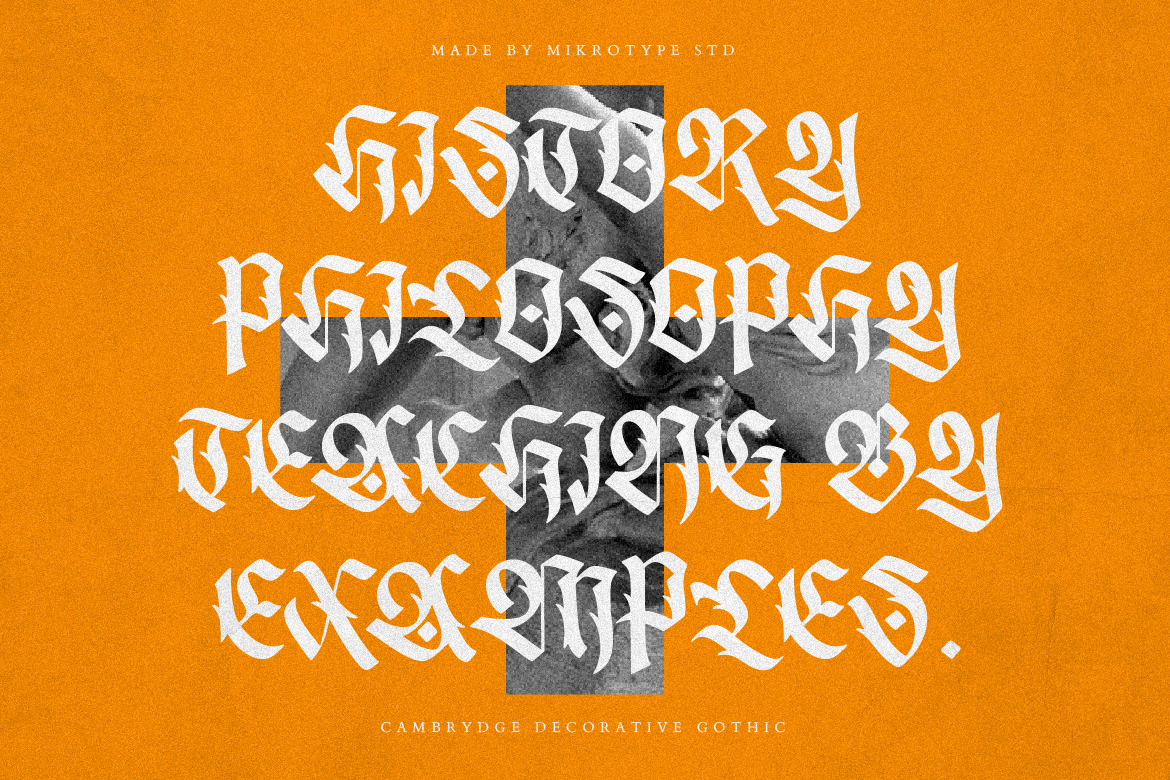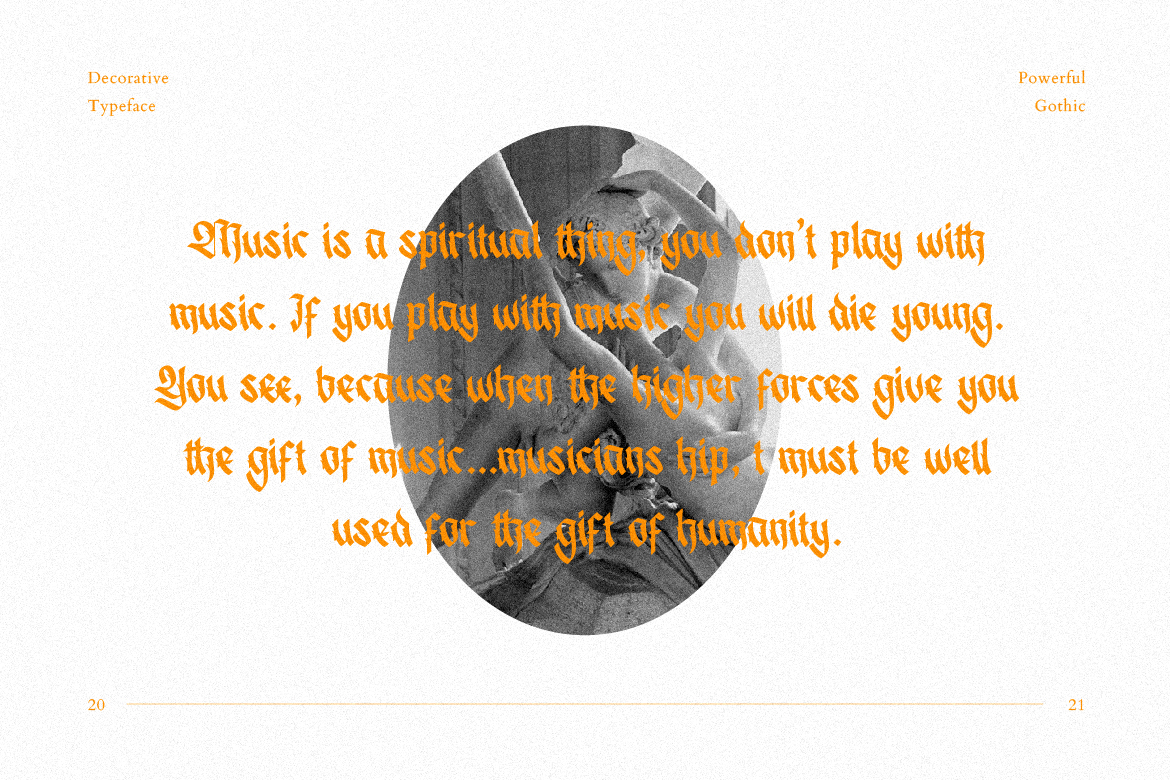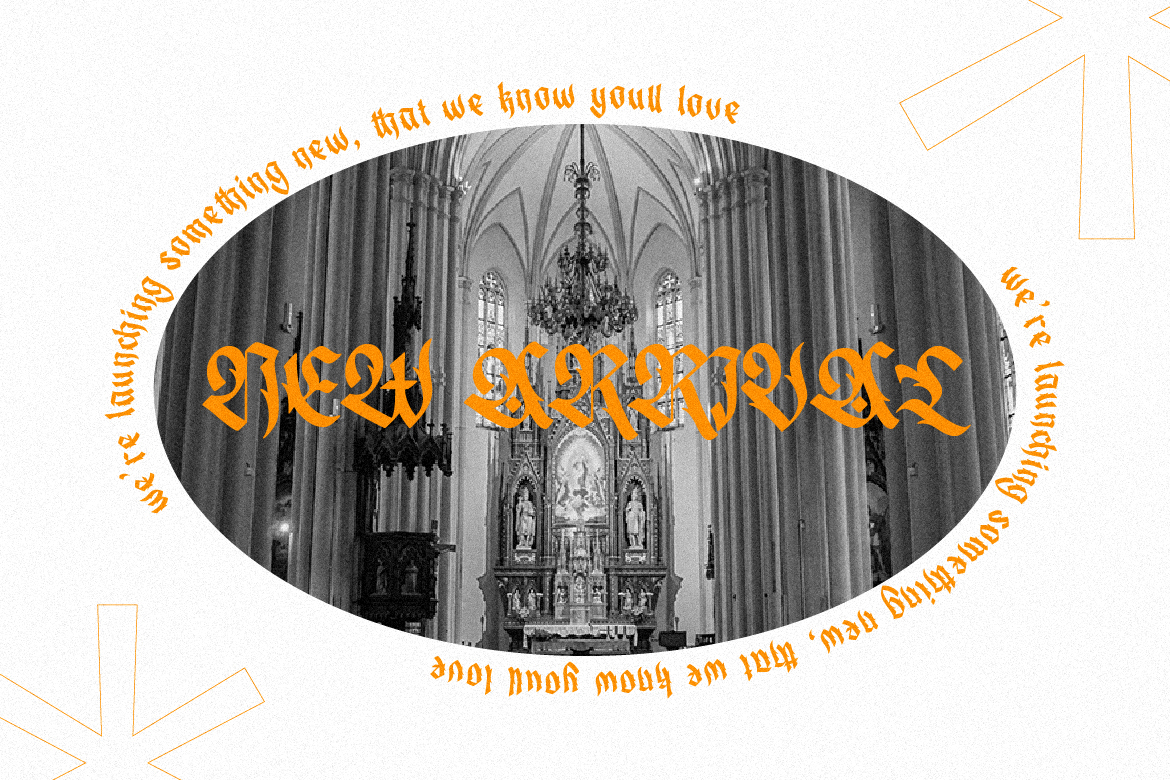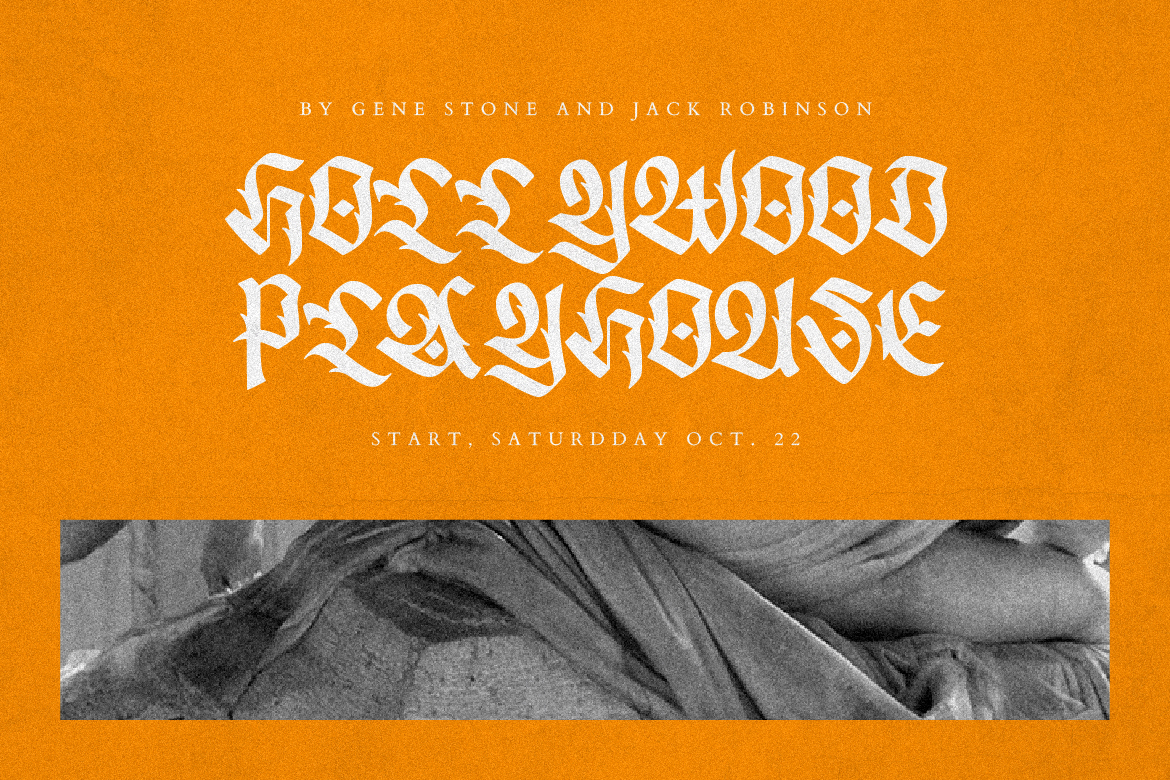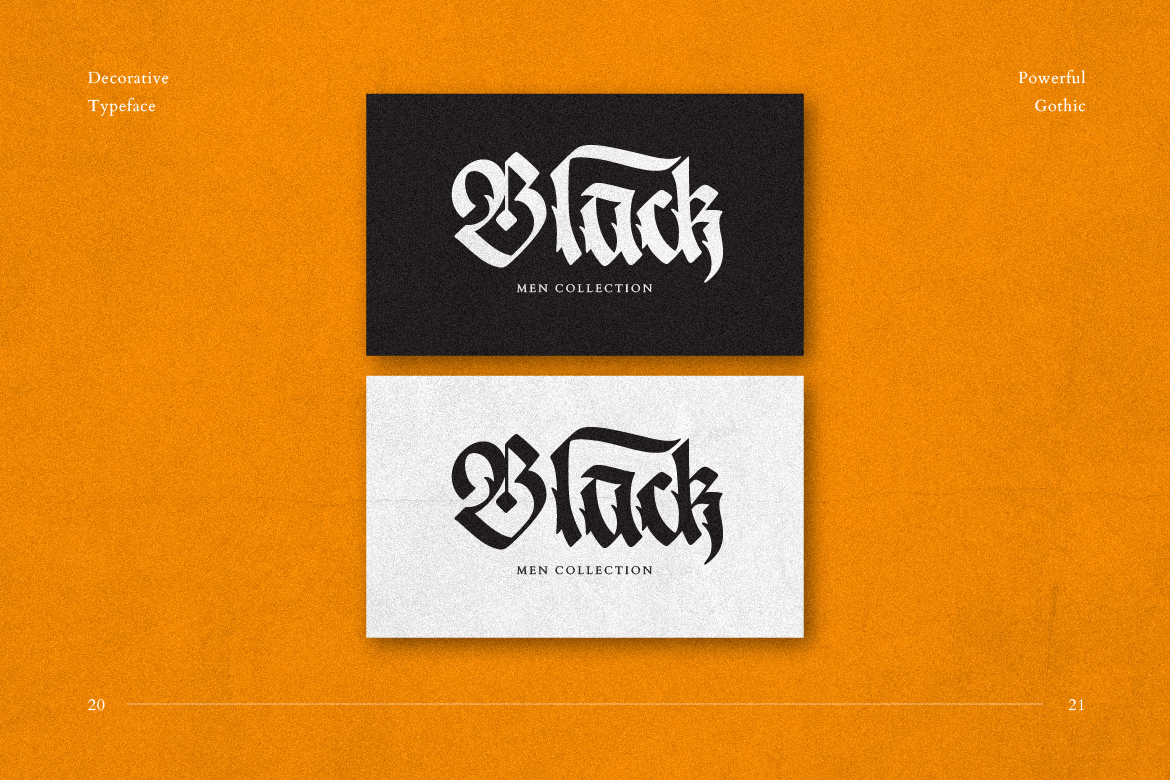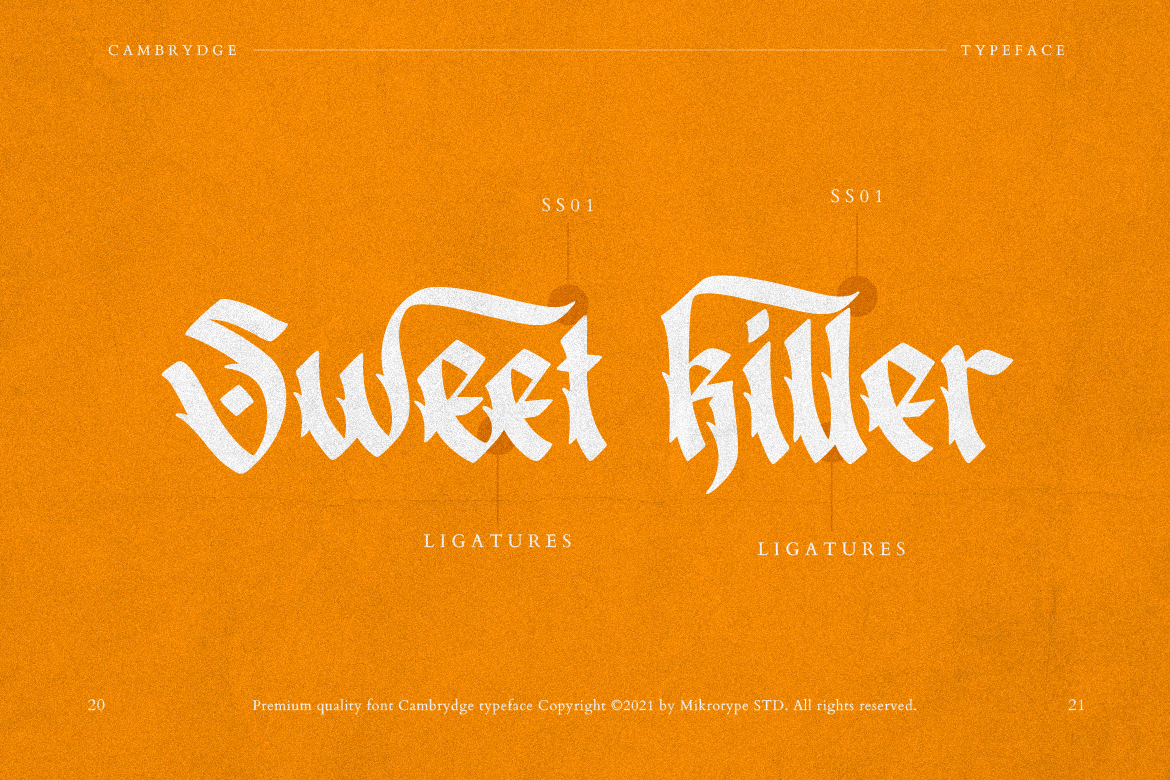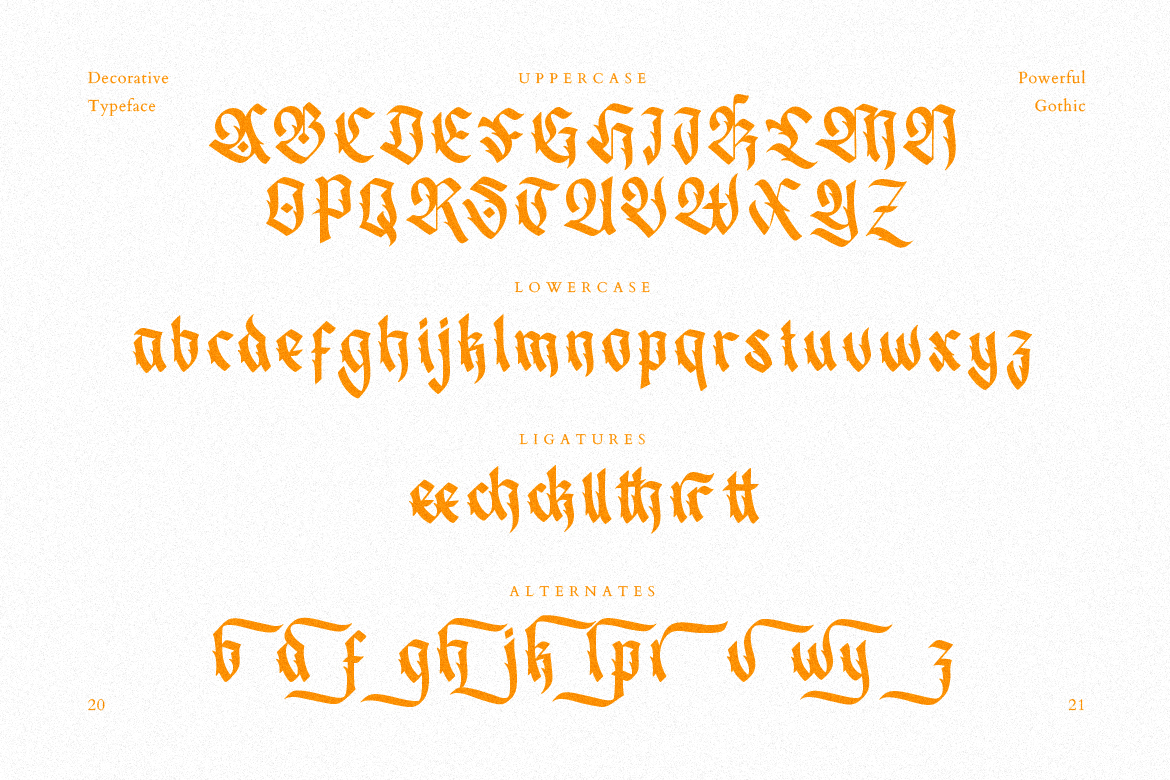
Cambrydge Gothic Advertisement Font
Introducing Cambrydge – A decorative gothic is an elegant, clean and trendy blackletter font. With a unique letter shape makes this font very beautiful and decorative. The font is perfect for for movie title, logo, blogging, brand identity, book title, social media, branding, wedding invites, cards or simply use it in your next design project and suitable to use for many occasion.